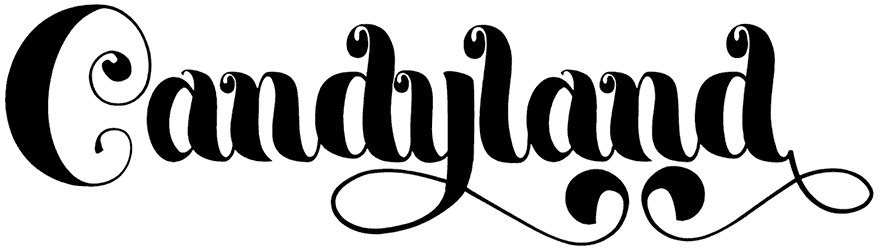
Candyland Font
Candyland is a trendy wedding font, so we invite you to add this lovely font to your creations and take your content to the next level.
It comes with a cursive design that dances along the baseline, thus it adds a sense of fancy, personalization, jauntiness, and vivacity to your artwork, including posters, packaging, logos, magazines, stationaries, and branding. Professional graphic designers would rather overlook the lack of numbers to make the best outcome out of it.
Introducing Candyland- A Sweet Handwritten FontCandyland is designed and carefully handcrafted elegantly and gracefully to embrace your project. This font will never go wrong for your audience, clients, guests or anyone around you! Use it for headings, logos, business cards, printed quotes, invitations of all sorts, cards, packaging, and your website or social media branding.